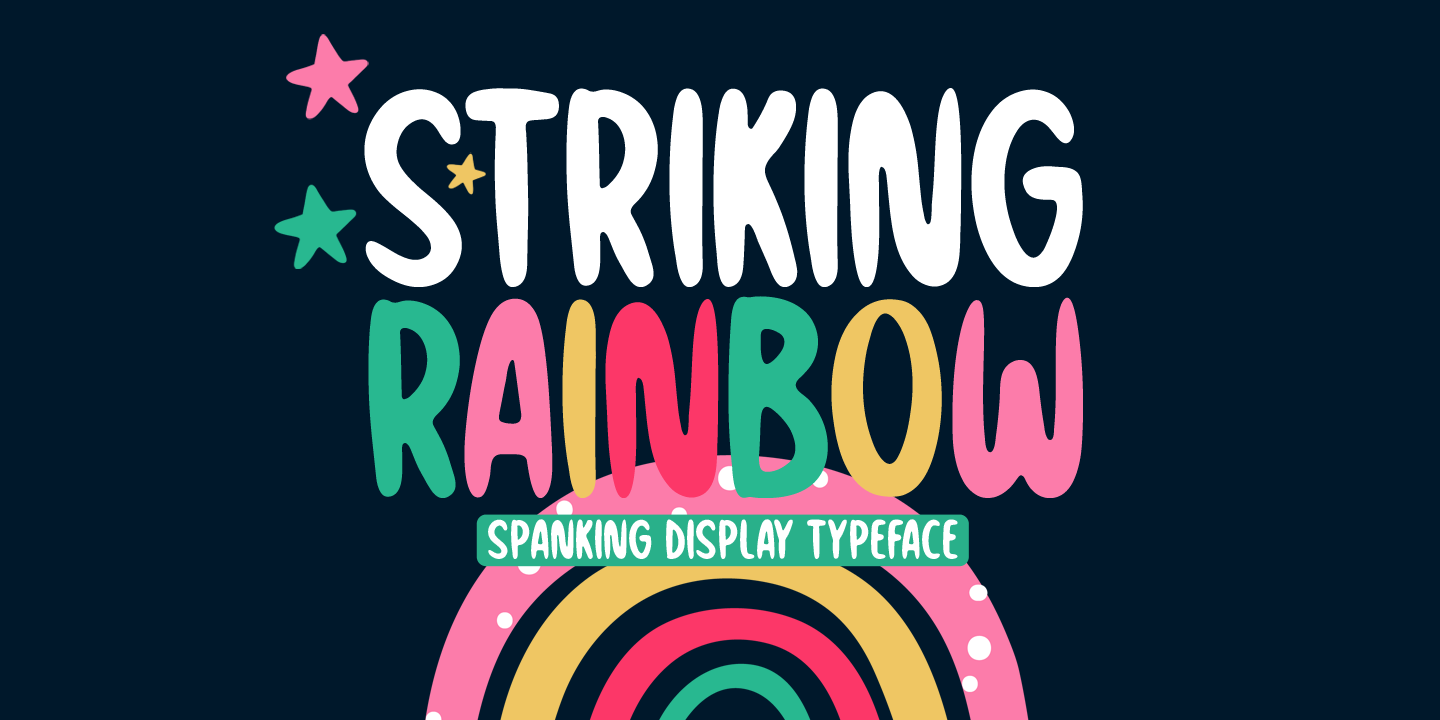
STRIKING RAINBOW
Designed by Md. Shohail Bhuiyan, Striking Rainbow is a hand display font published by Seemly Fonts.
Striking Rainbow is a brand new display font. Striking Rainbow is perfectly suited for stationery, logos, t-shirt, paper, print design, website header, photo frame, flyer, music cover, poster, image slider, and much more.
Foundry Seemly Fonts
Style Hand Display
Designer Md. Shohail Bhuiyan